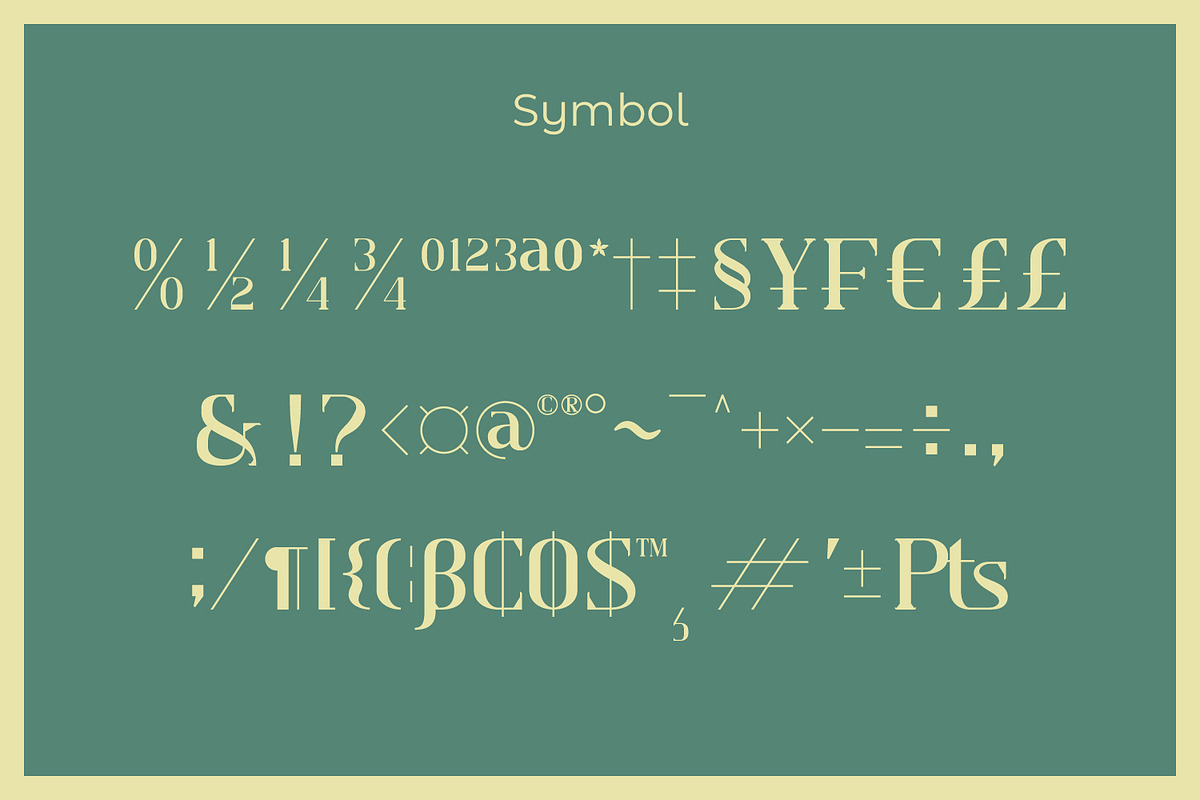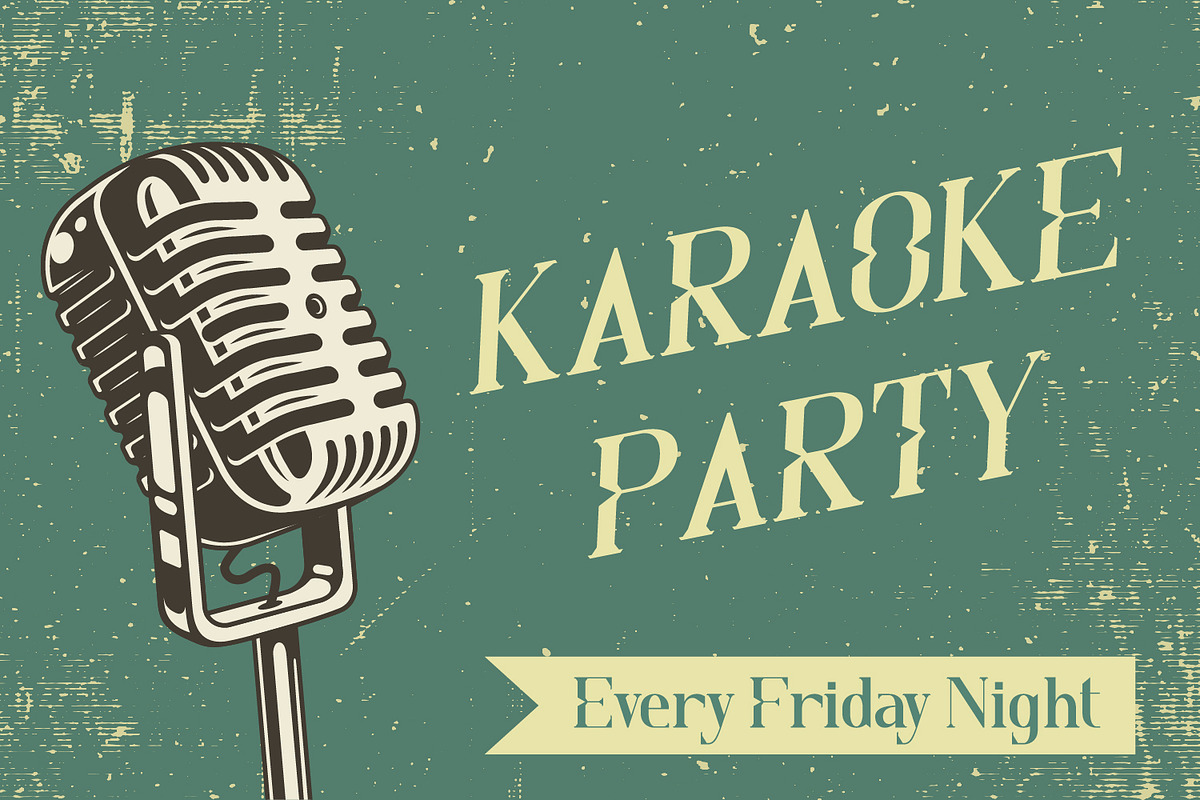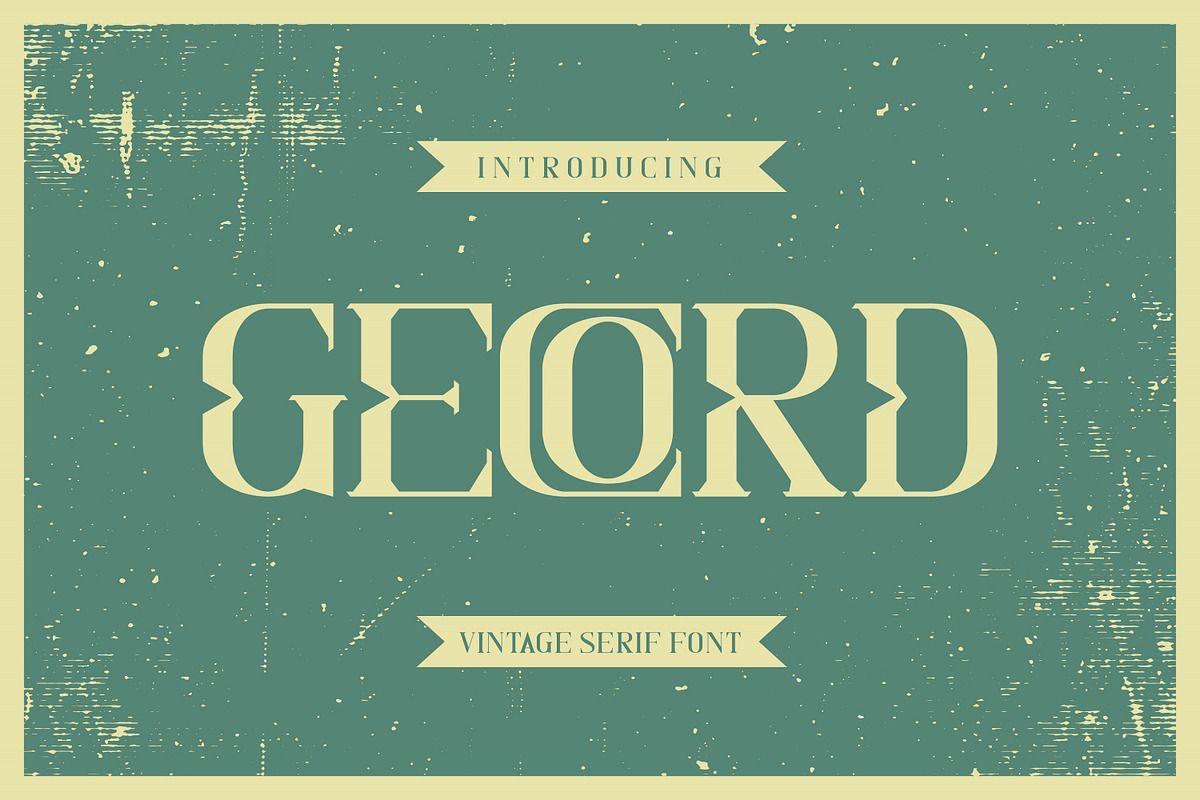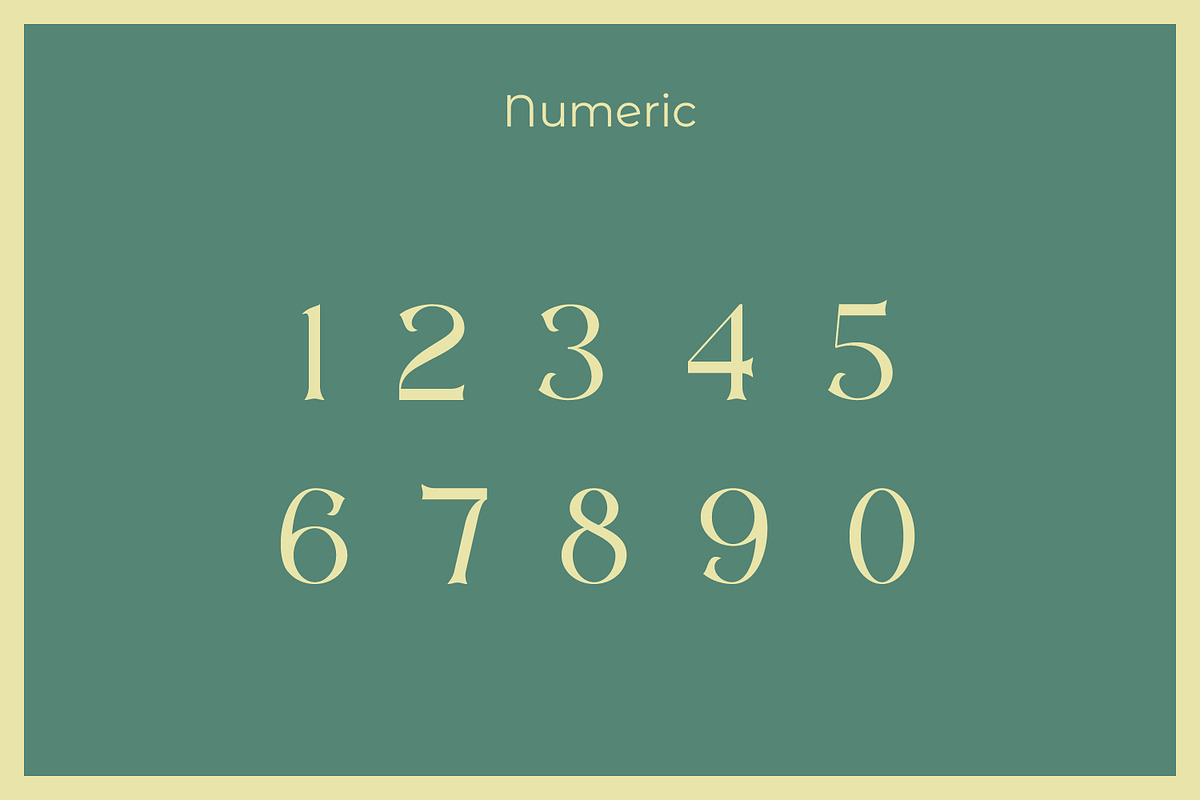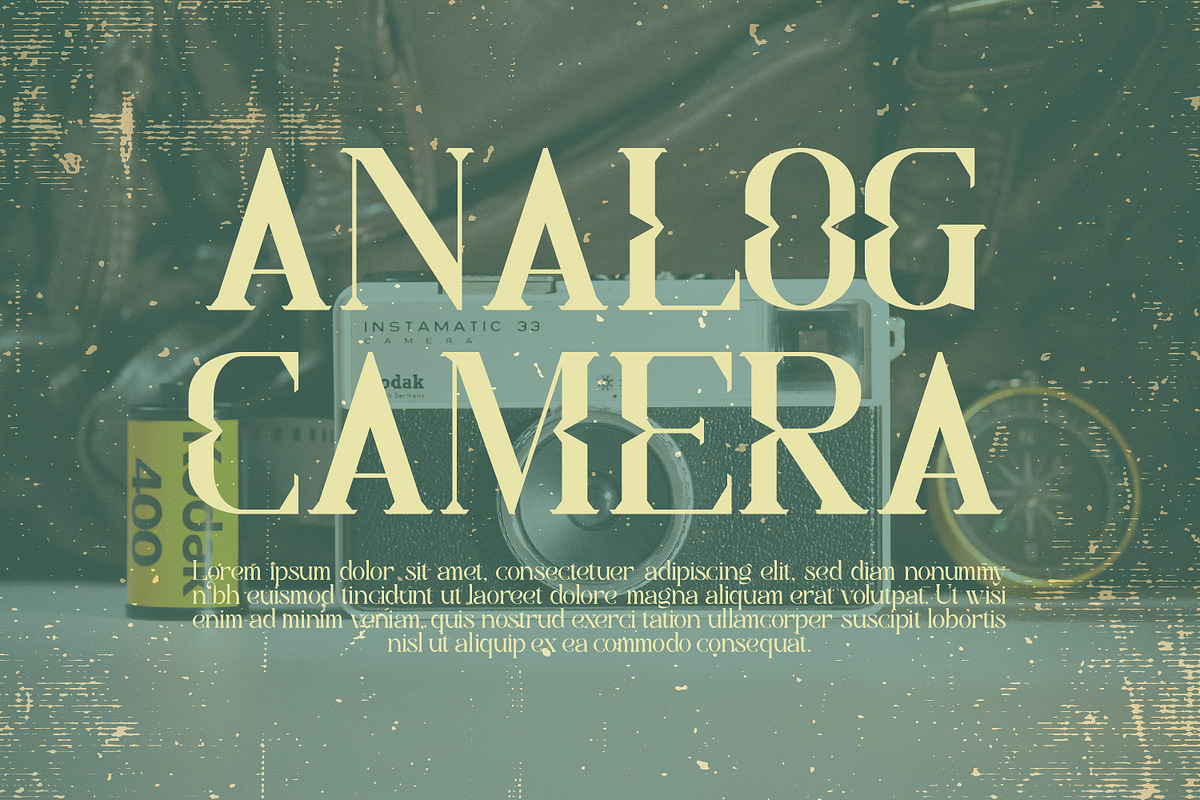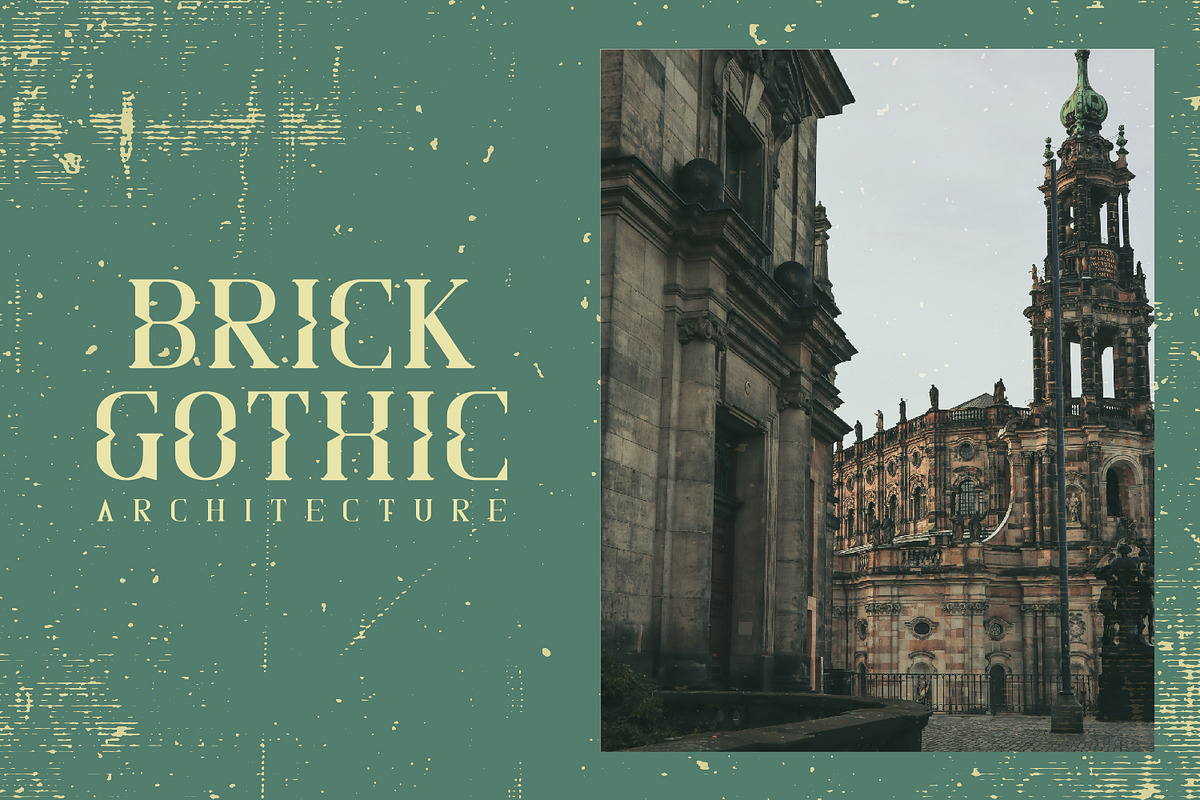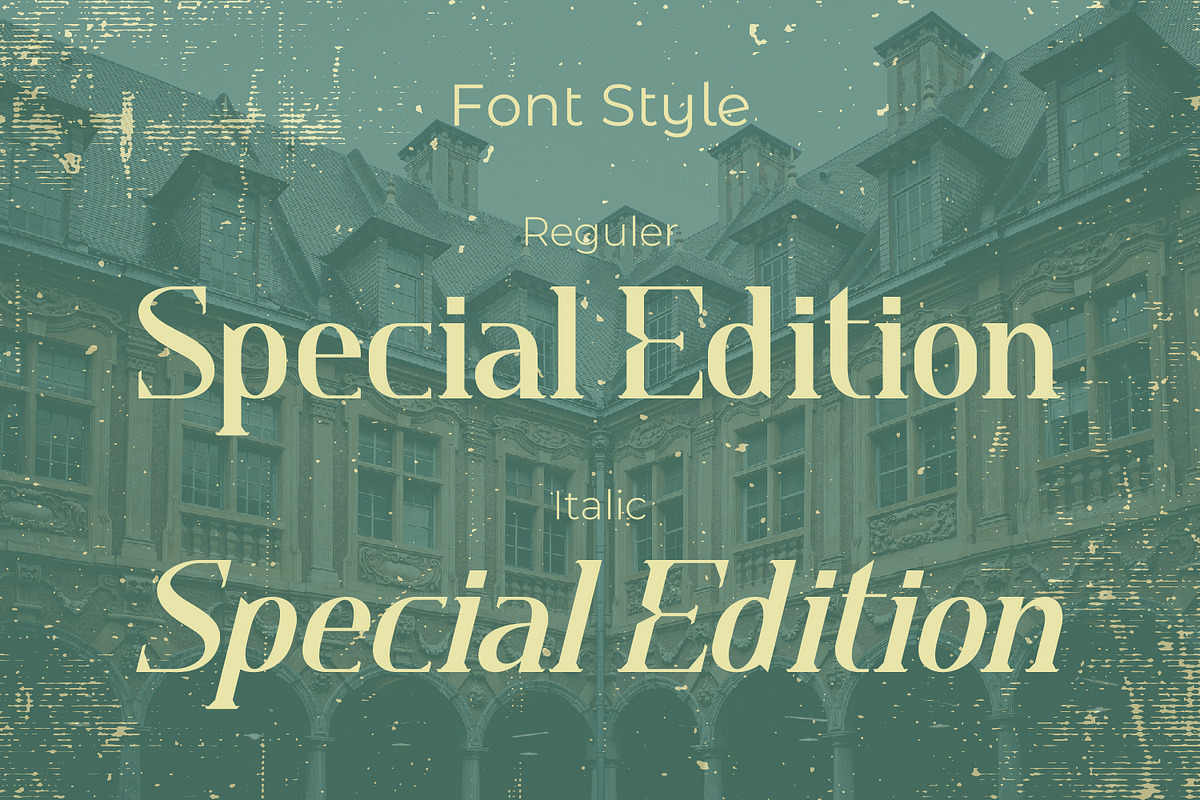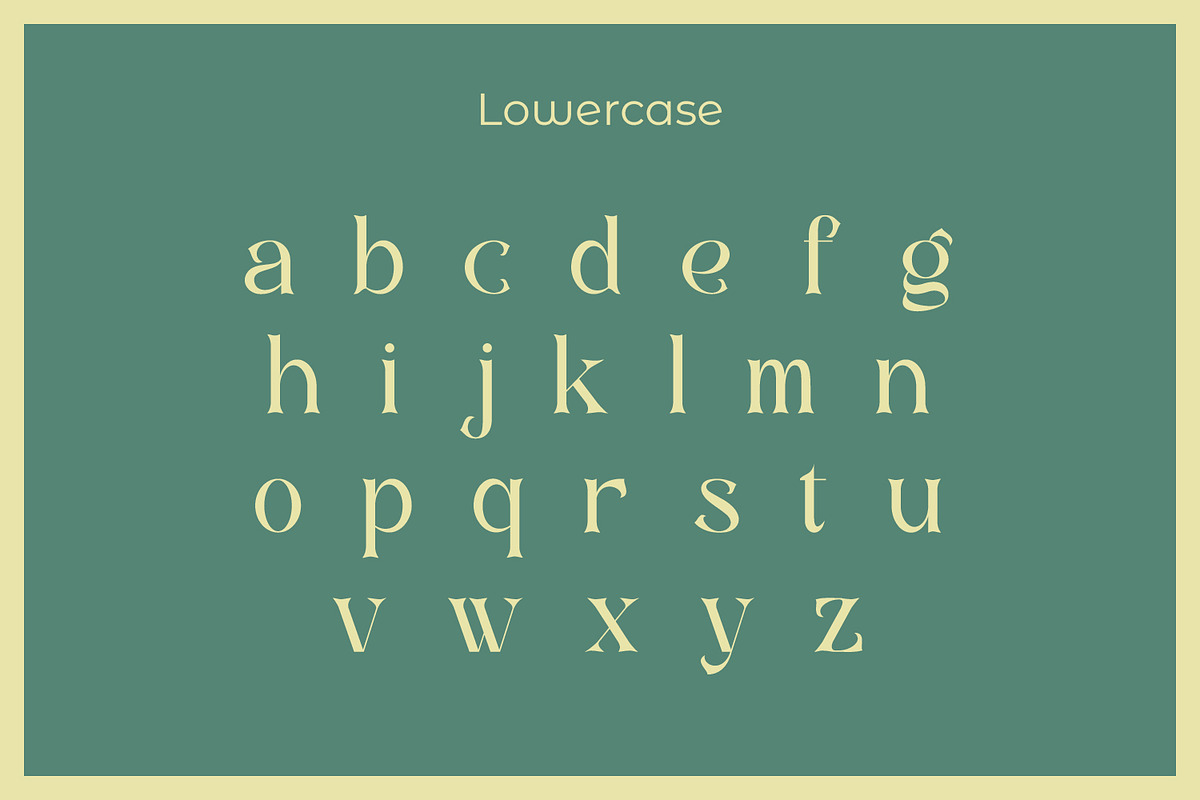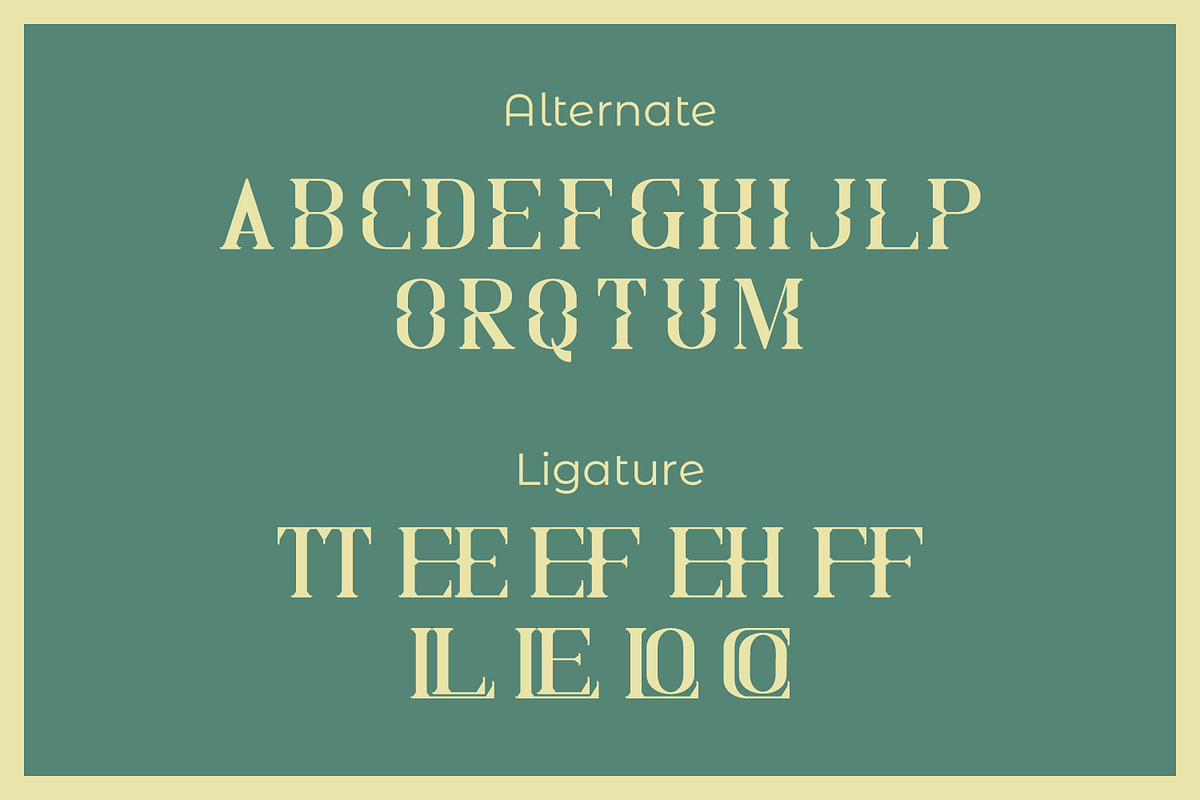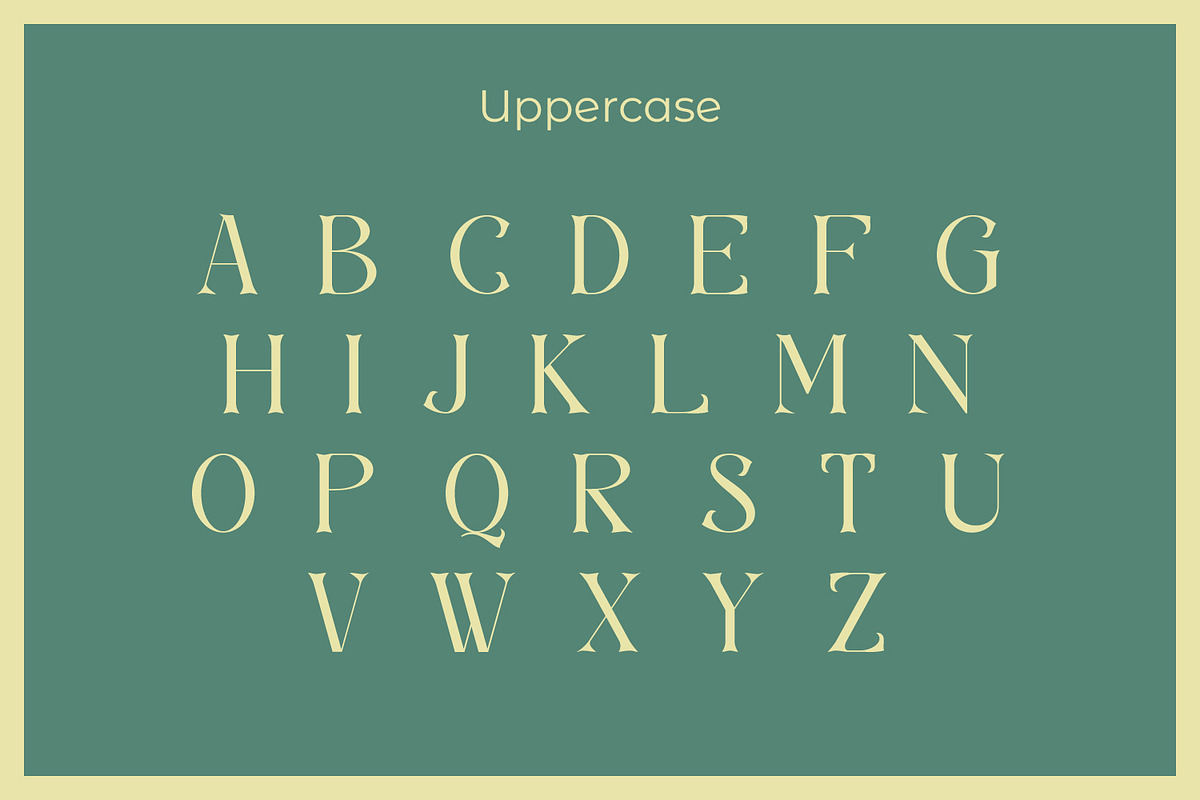
Gecord
Gecord - Vintage Serif Font, from Rishsketch Studios, is a premium Serif Font, perfect for any project that requires a distinctive, and premium feel.
Ligature, Alternate & Multilingu